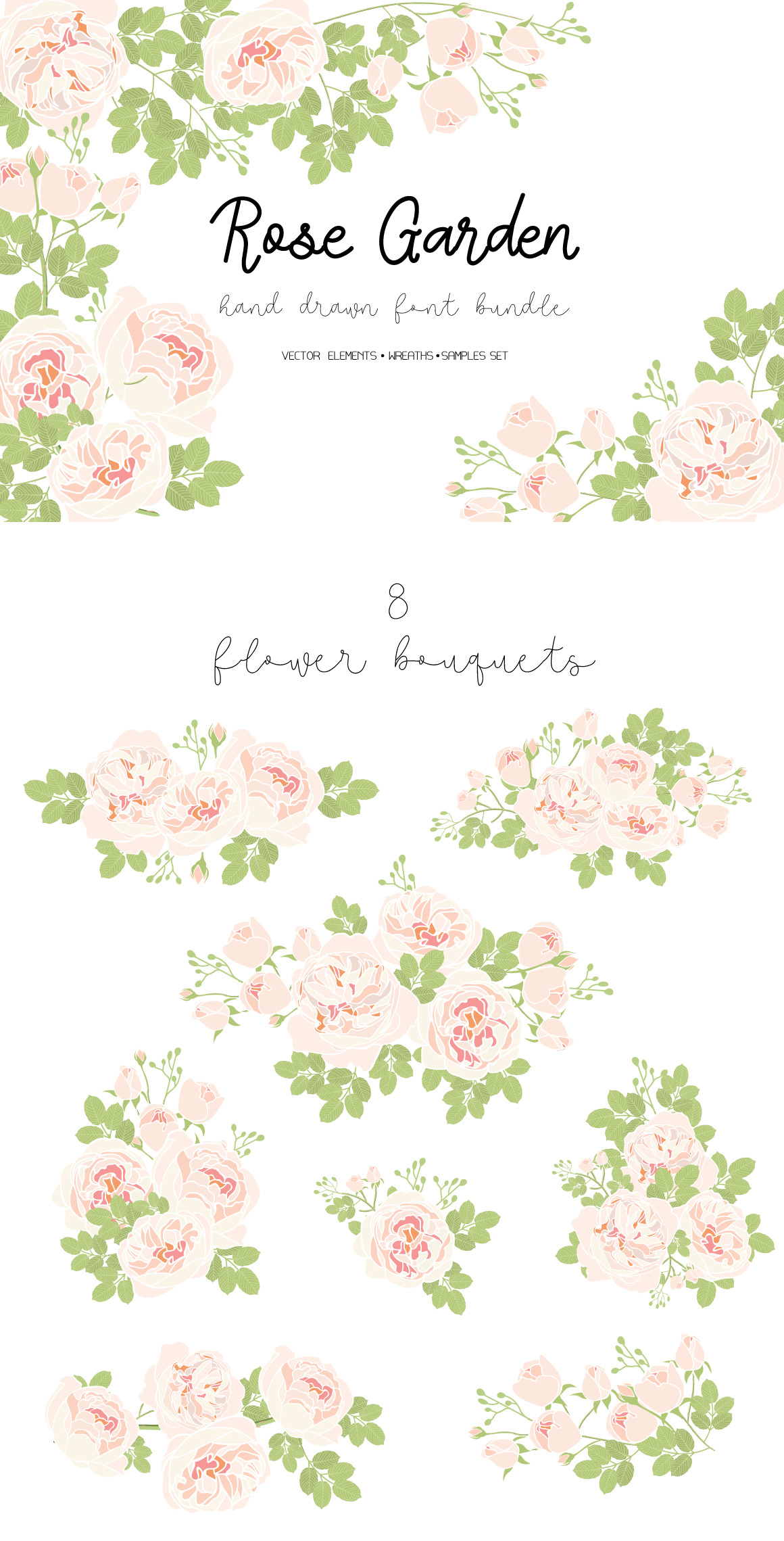
FONT SET&Rose Garden vector element
lineCallyV1 Font & BEERRegular Font & SCript2 Font Triple fresh handmade calligraphy font. Design for logo or create unique design product, blog, magazine and more your creative design.
NOTE:: all font only support A to Z not include number and any symbol